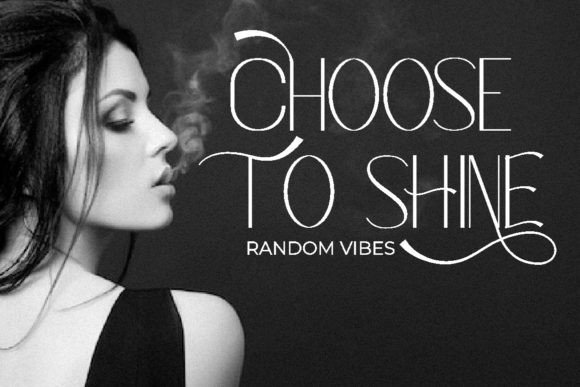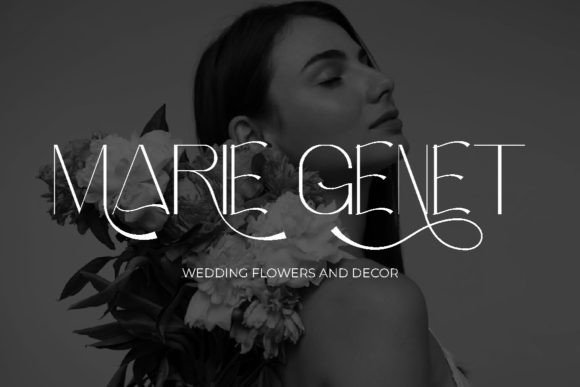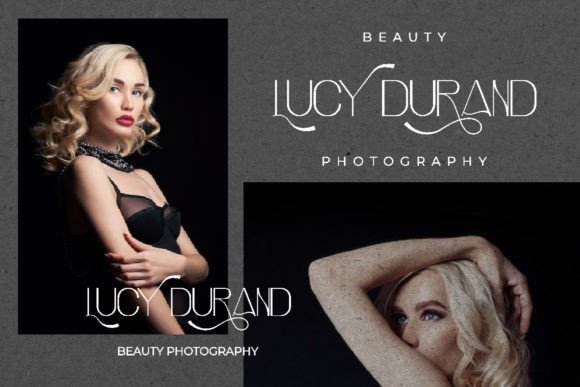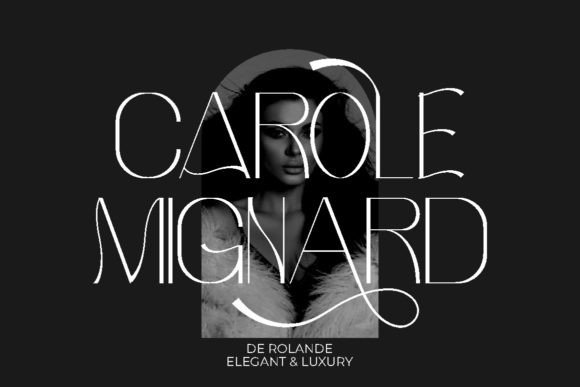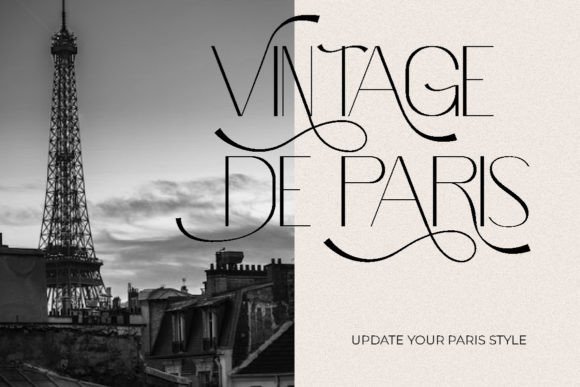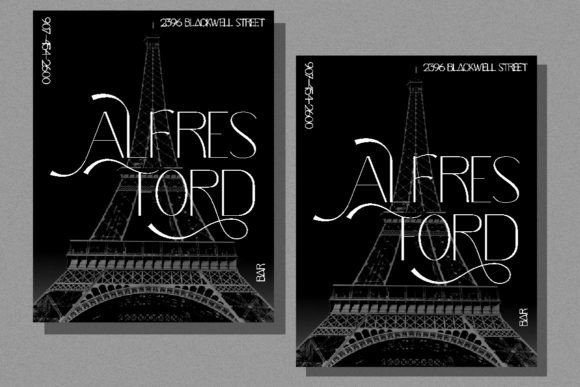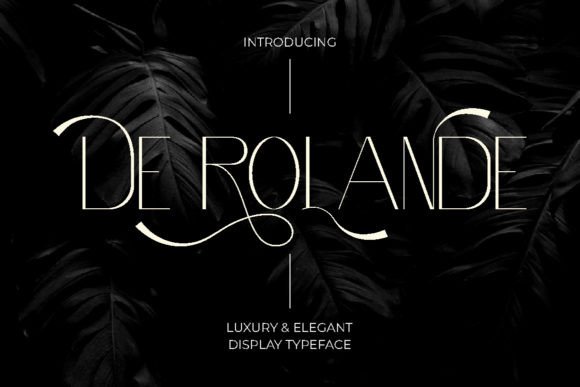
Introducing De Rolande Font: The Epitome of Luxury and Elegance
In the world of typography, few fonts have managed to capture the essence of luxury and elegance as effortlessly as De Rolande. This stunning display typeface is designed to elevate your designs to new heights of sophistication, making it the perfect choice for luxury brands, fashion and beauty industries, high-end products, and refined designs.
The Inspiration Behind De Rolande
De Rolande’s design is deeply rooted in the grandeur of the French Renaissance, a period renowned for its exquisite artistry, architectural marvels, and beautiful calligraphy. The font’s creator drew inspiration from the intricate details and flowing lines characteristic of calligraphic art, infusing De Rolande with a classic and timeless feel. This historical influence is evident in the font’s elegant strokes, refined lines, and majestic presence.
Key Features of De Rolande Font
- Classic and Timeless Design: De Rolande boasts a design that exudes luxury and style, ensuring that your designs remain relevant and sophisticated for years to come.
- Elegant and Sophisticated: The font’s flowing lines and refined details add a touch of elegance and sophistication to any design, making it perfect for high-end applications.
- Versatility: De Rolande is incredibly versatile and can be used across various design projects, including logos, branding, book covers, posters, flyers, and digital designs.
- Easy to Read: Despite its luxurious feel, De Rolande is easy to read, making it a practical choice for designs that require both style and substance.
Why Choose De Rolande for Your Designs?
For designers and crafters looking to create a lasting impression, De Rolande offers a unique combination of style, elegance, and versatility. Here are a few reasons why De Rolande stands out:
- Luxury Appeal: De Rolande’s design is inherently luxurious, making it an excellent choice for brands that want to convey a sense of high-end quality and sophistication.
- Unique Features: The font’s distinctive lines, curves, and details ensure that your designs stand out from the crowd, capturing the attention of your target audience.
- Crafting a Sophisticated Image: For luxury brands, De Rolande provides the perfect typographic solution to create a sophisticated and elegant image that resonates with their audience.
Using De Rolande in Your Designs
De Rolande’s versatility makes it suitable for a wide range of design applications. Here are some ideas on how to incorporate De Rolande into your projects:
- Branding and Logos: Use De Rolande to create a luxurious brand identity that exudes elegance and sophistication.
- Print Materials: Elevate your print designs, such as book covers, posters, and flyers, with De Rolande’s classic and refined aesthetic.
- Digital Designs: Incorporate De Rolande into your digital projects, including website headers, social media graphics, and email newsletters, to add a touch of luxury and style.
De Rolande is more than just a font – it’s a design statement that speaks to luxury, elegance, and sophistication. Whether you’re a designer, crafter, or brand looking to elevate your visual identity, De Rolande offers the perfect blend of style, versatility, and timeless appeal. By incorporating De Rolande into your designs, you’ll not only enhance their aesthetic appeal but also ensure they leave a lasting impression on your audience.